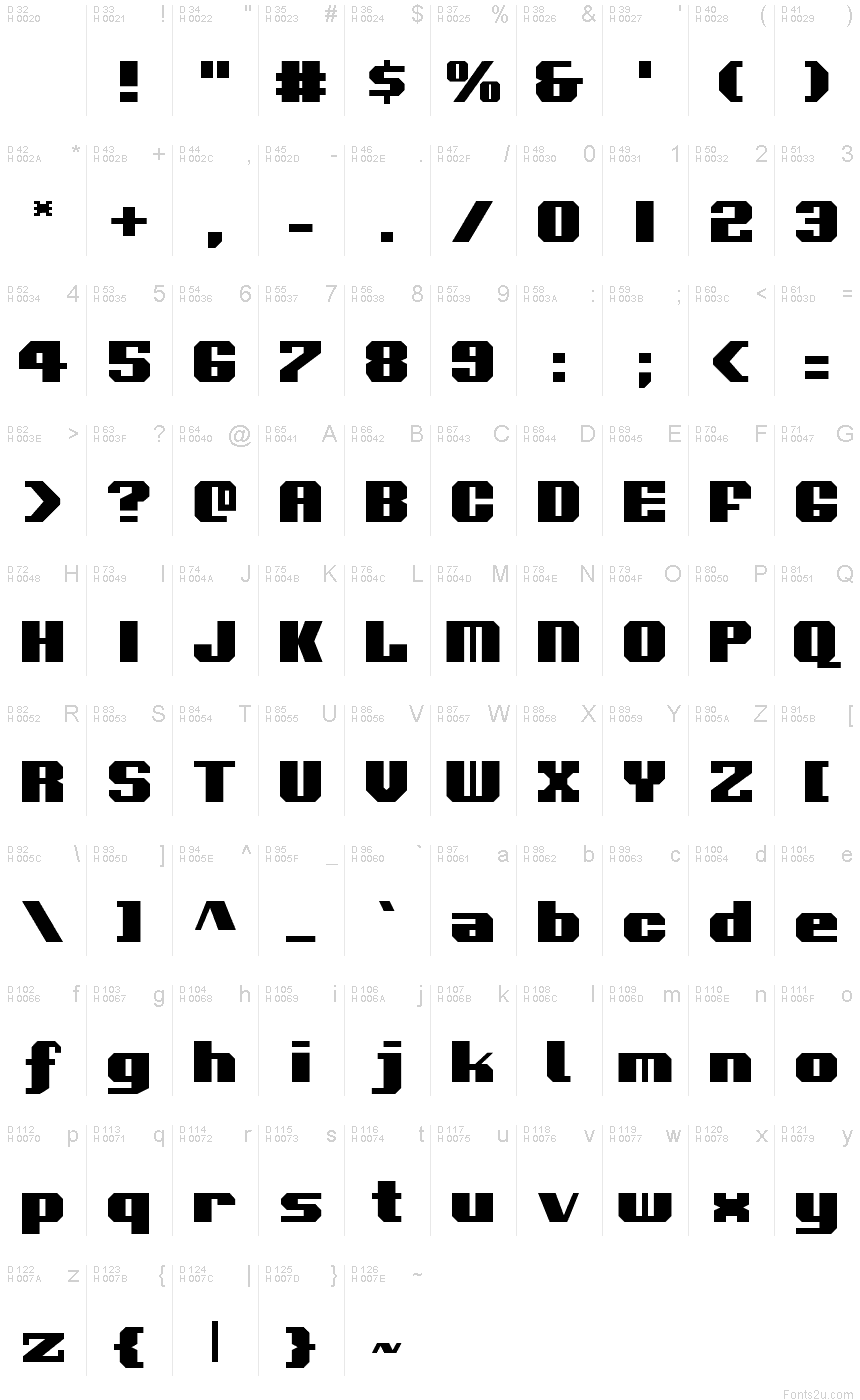
Voortrekker from Iconian Fonts is a free techno display font built from massive, angular letterforms. Broad strokes, clipped corners, and abrupt cuts create a hard, machine-cut silhouette, with compact rectangular openings adding to the industrial construction. The shapes are blunt and tightly fitted, closer to armored signage than a sleek digital face, with little softness anywhere.
Its industrial science-fiction look suits game logos and esports merchandise. The same blocky forms can frame science-fiction posters, electronic music covers, and motorsport event graphics, especially when the lettering becomes part of a badge or mechanical emblem.